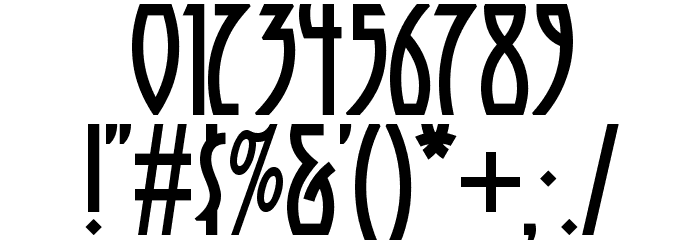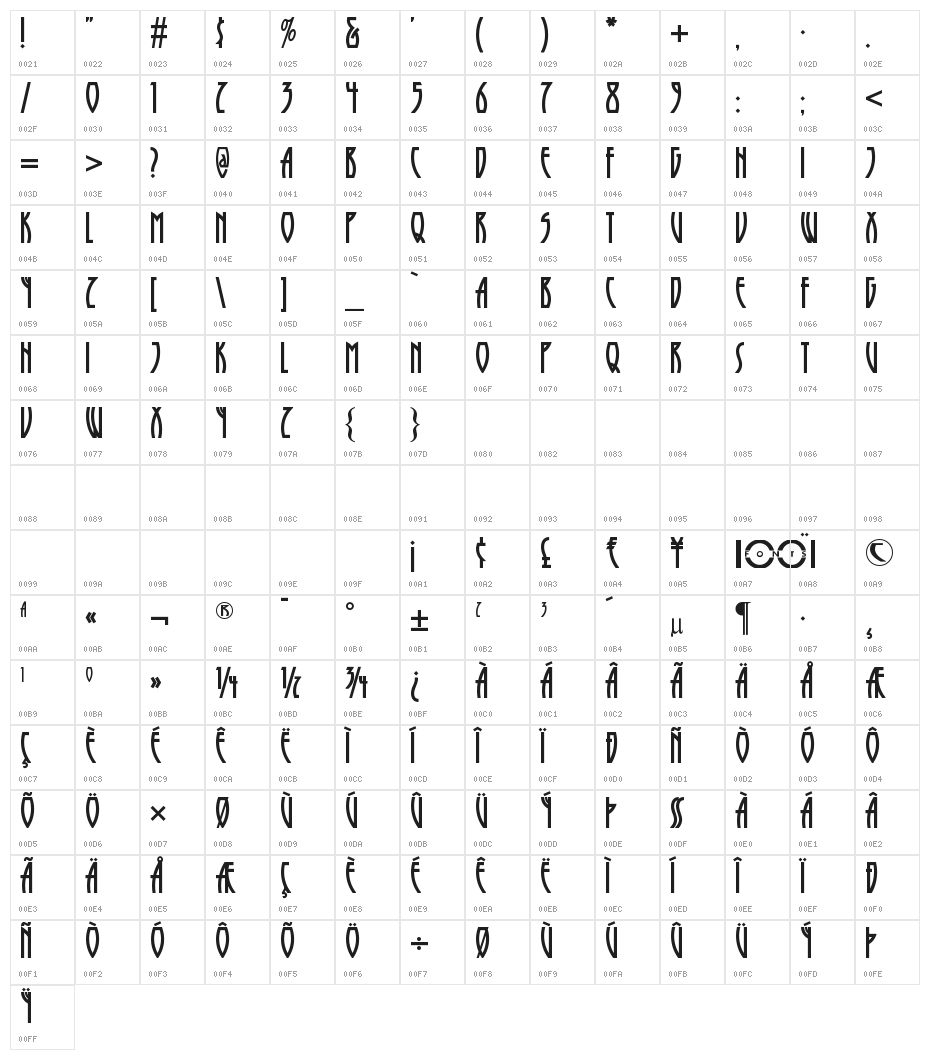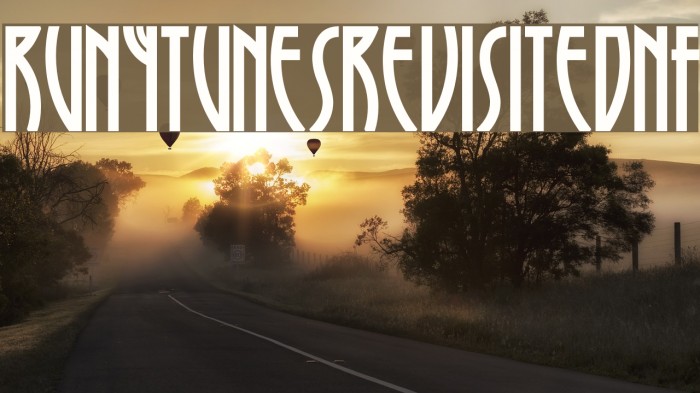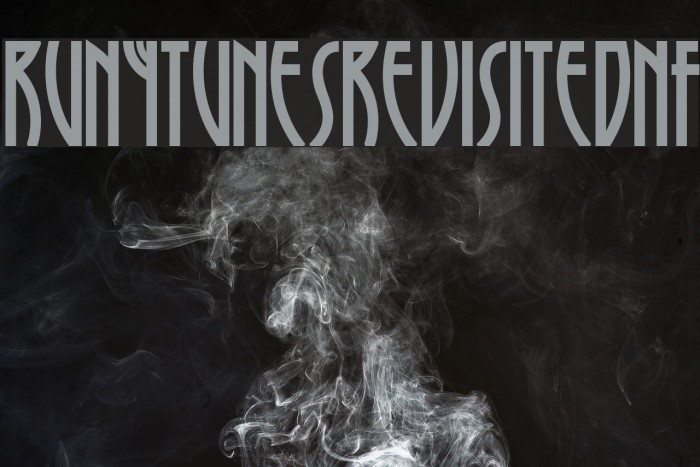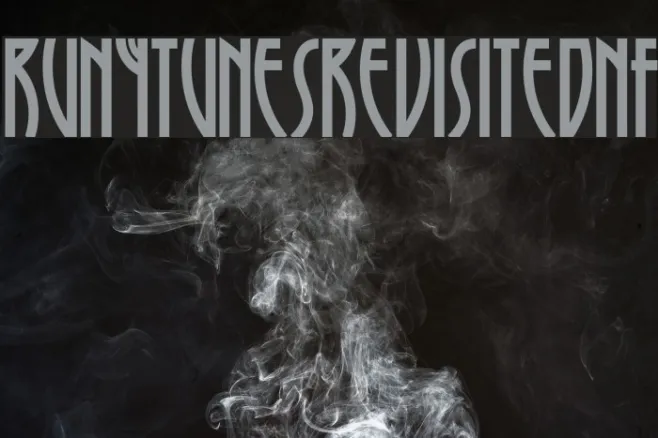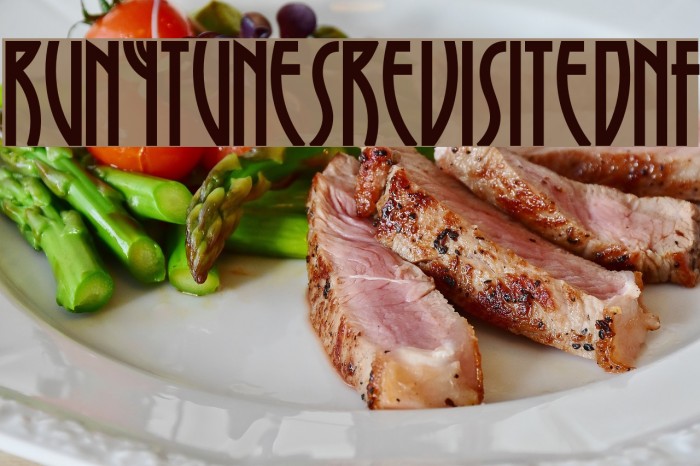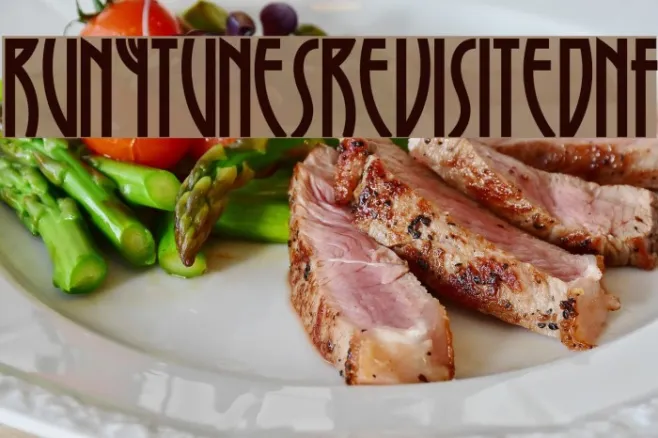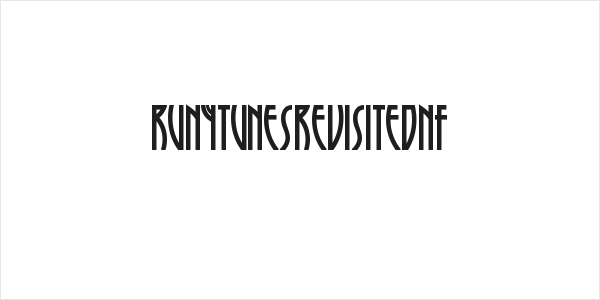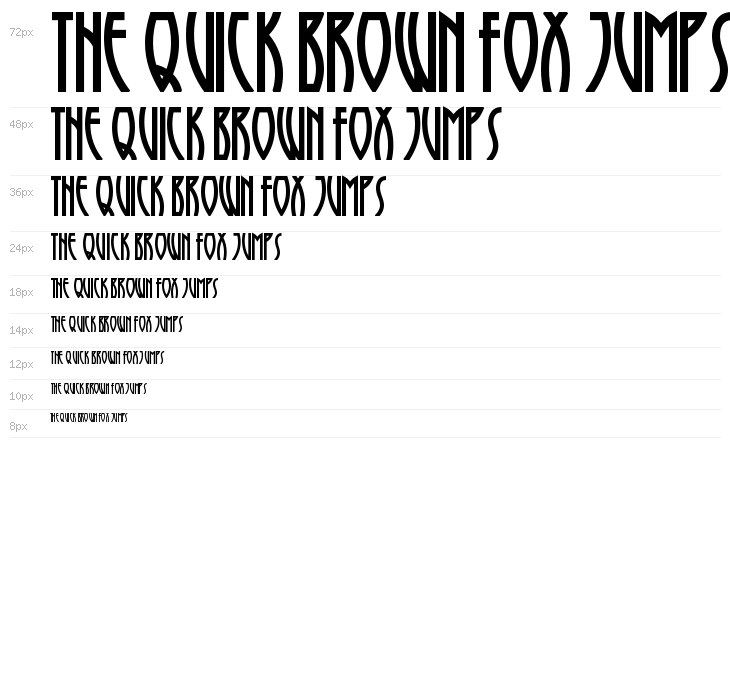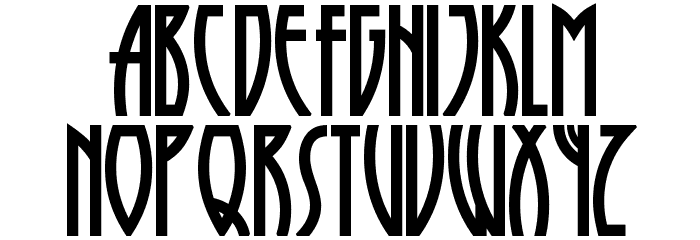
RunyTunesRevisitedNF Font
RunyTunesRevisitedNF Description
This font features a unique, elongated style with a distinct Art Deco influence. The characters are tall and narrow, with sharp angles and a geometric flair that gives them a modern yet vintage feel. The uppercase and lowercase letters maintain a consistent height, creating a uniform appearance. The numbers and special characters follow the same stylistic cues, ensuring cohesion across all glyphs. This font's bold and striking design makes it ideal for attention-grabbing projects.
| Proposed Projects | Ideal for posters, album covers, branding, and any project requiring a bold, vintage-modern aesthetic. |